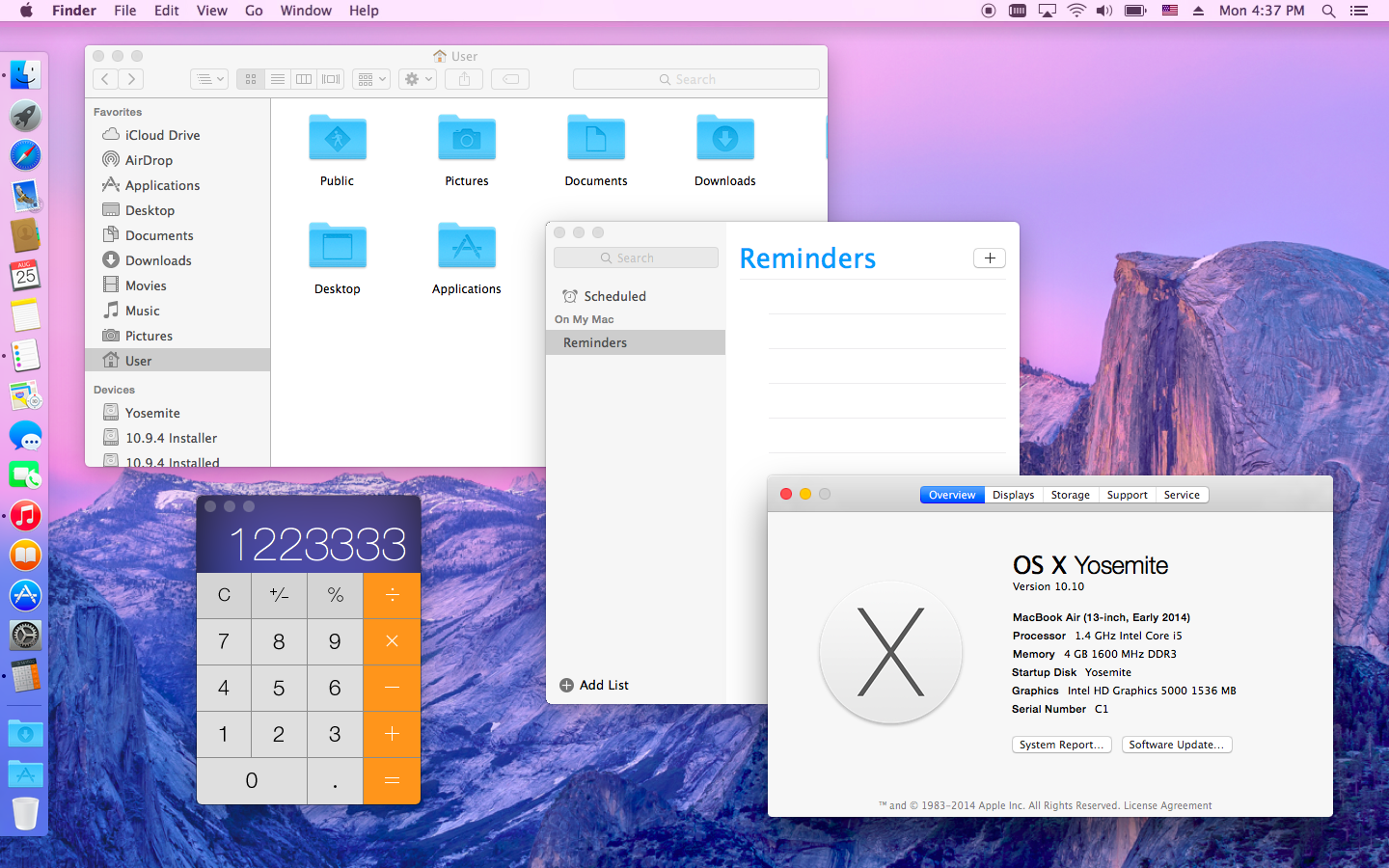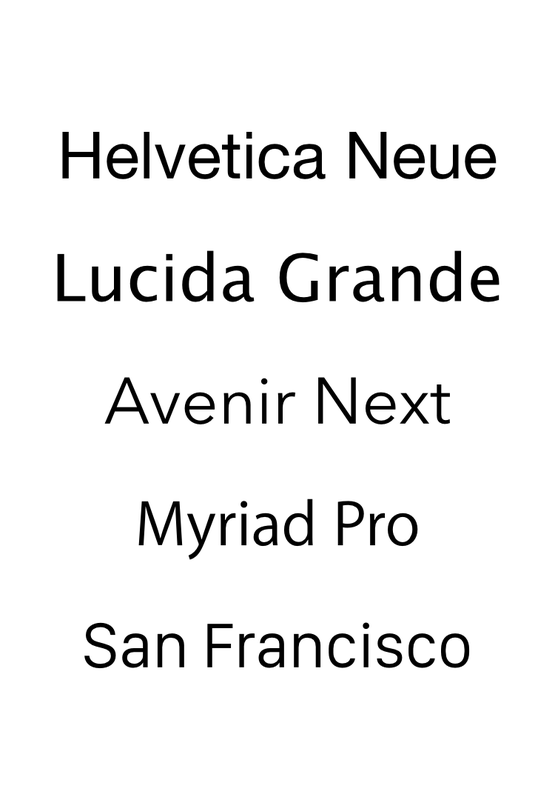
What font looks best on Yosemite?
• Helvetica Neue (current system font)
• Lucida Grande (pre-Yosemite system font)
• Avenir Next
• Myriad Pro (Apple's current marketing/website font)
I just wondered which of these fonts you like most with the Yosemite UI. I attached screenshots of each option below:
Comparison:
Helvetica Neue:
Lucida Grande:
Avenir Next:
San Francisco 🙂apple:WATCH font):
Also, please specify if you have a Retina or Non-Retina display, as the appearance and quality of the font depends on the quality of your display.
I actually like Helvetica Neue better than Lucida Grande on my 100% non-retina Macs. Everything just looks cleaner. Your screen shots don't really help me judge the other fonts since they are all of different things and sizes.
I'm really loving how Avenir Next looks with Yosemite at least in those screenshots. I'm trying to figure out a way to install that as my system font. I think it looks really modern and clean.